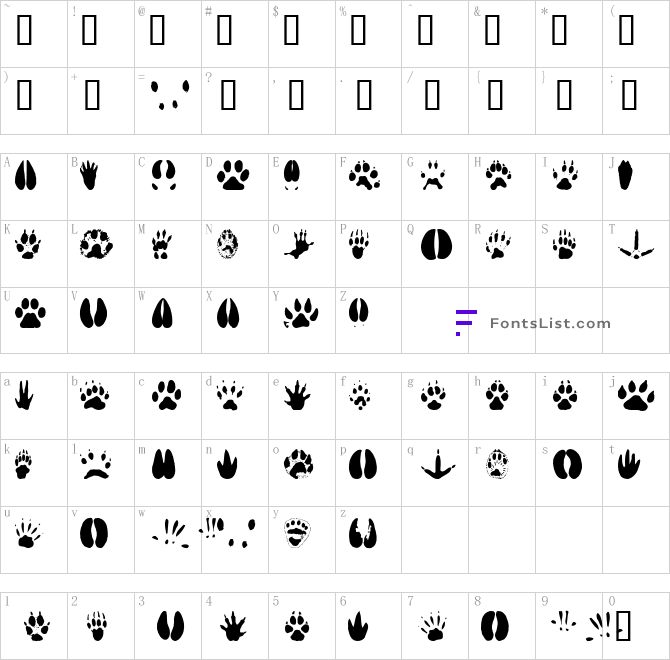
- Font Name:AnimalTracks
AnimalTracks-copy-3-.ttf is a very beautiful artistic font, AnimalTracks-copy-3-.ttf is widely used in the design and printing of various books and pictures,AnimalTracks-copy-3-.ttf has a strong visual impact,AnimalTracks-copy-3-.ttf is a commonly used font in newspapers, magazines and books, and is used in posters, e-commerce Poster design, store design, logo design, font design and other fields.AnimalTracks-copy-3-.